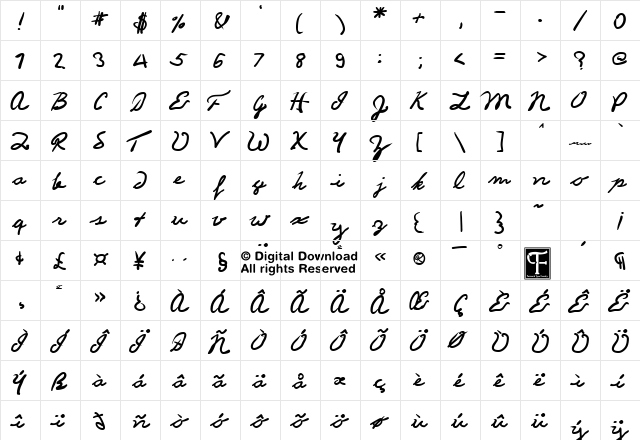
Jeffersonian Regular
| Copyright | 97 Digital Download, Inc.; Design: L. Theodore Ollier |
Design Context for Jeffersonian Typeface
Jeffersonian takes a measured approach to typography — its balanced proportions and neutral character make it a reliable workhorse for both digital and print work.